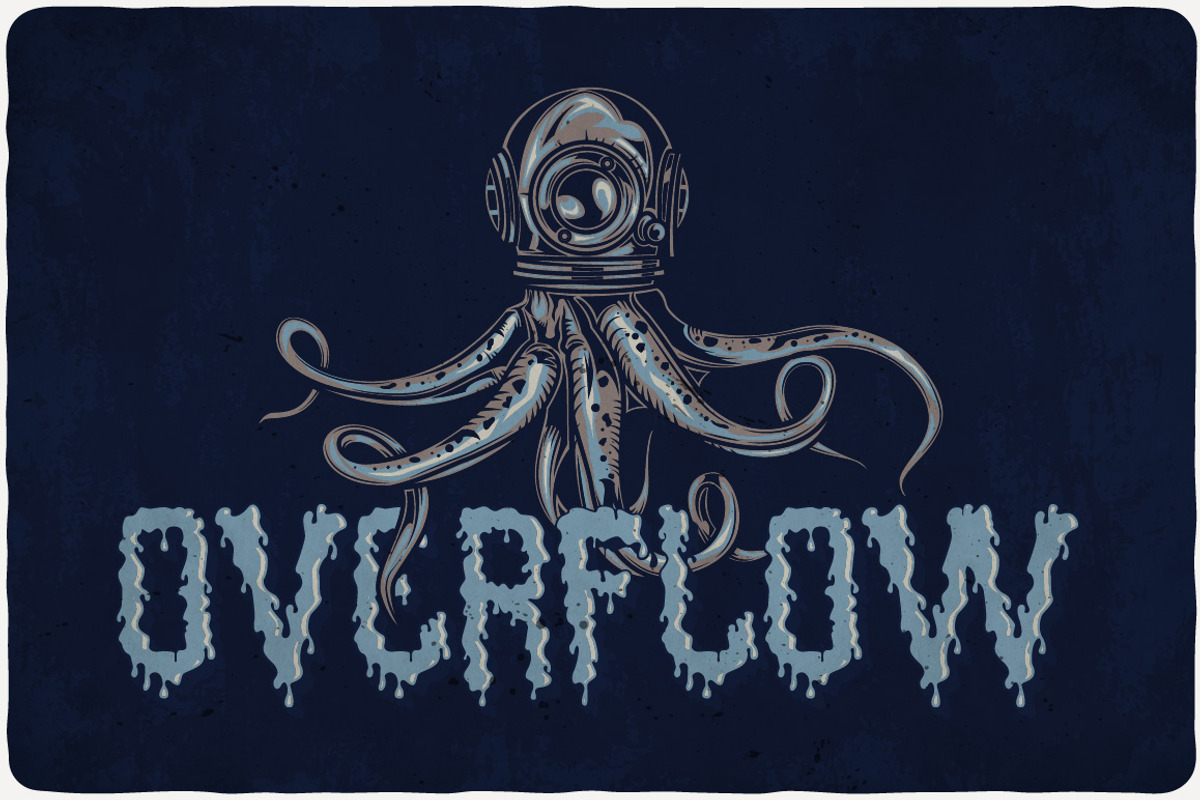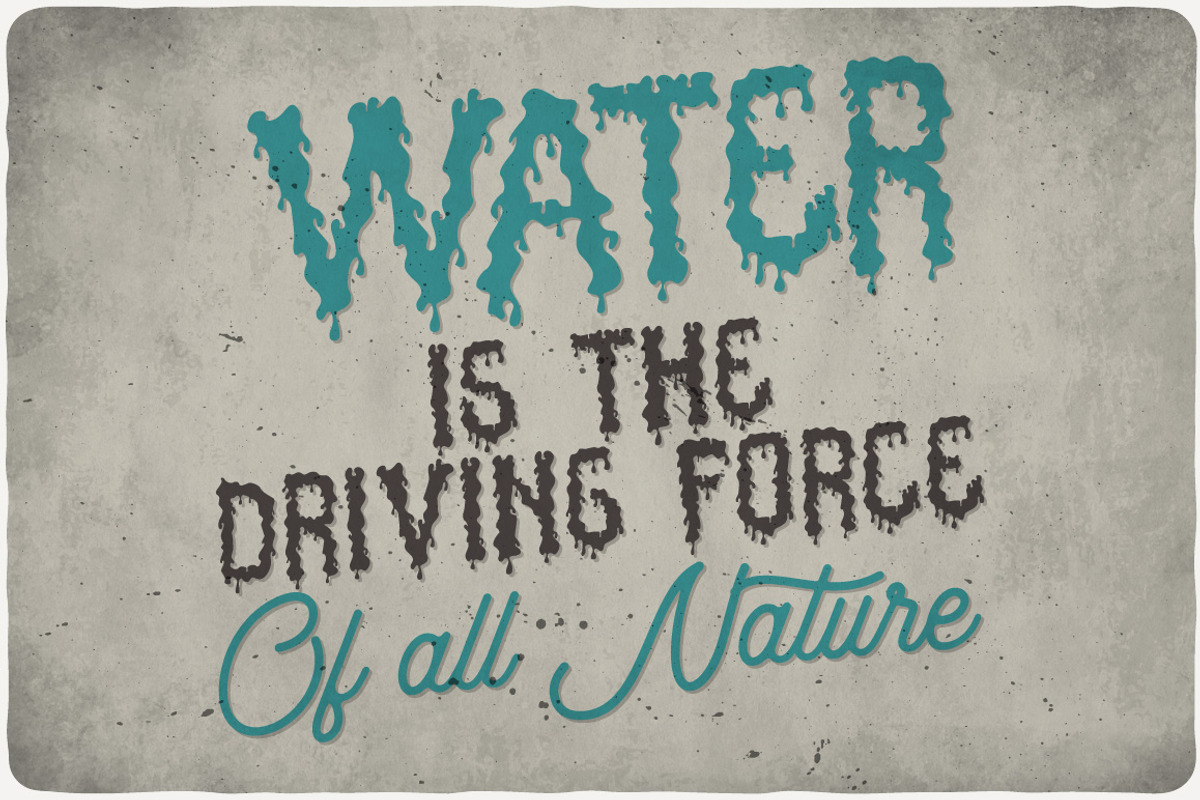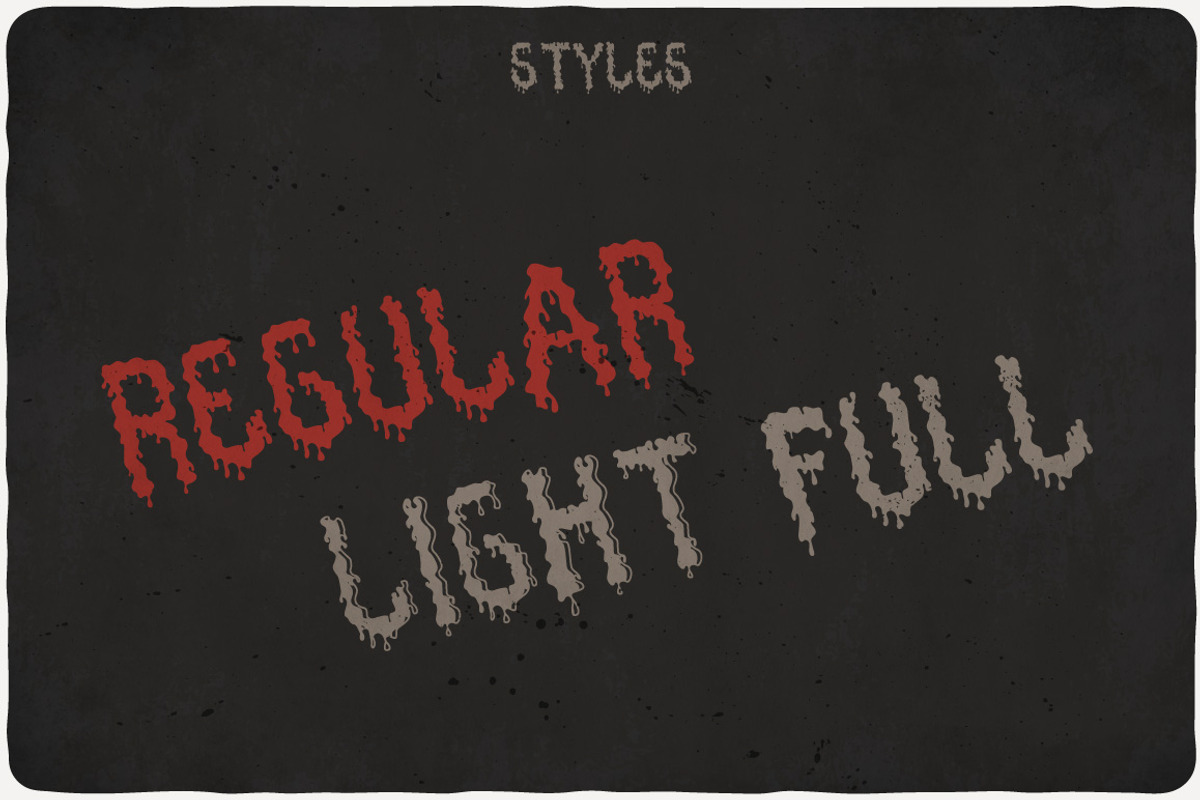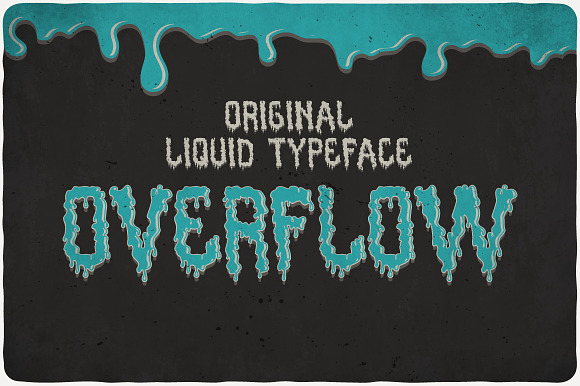
Overflow Typeface
Introducing a original look label typeface named "Overflow". It's made in water flow style :) Typeface is good viewed on any liquid design.